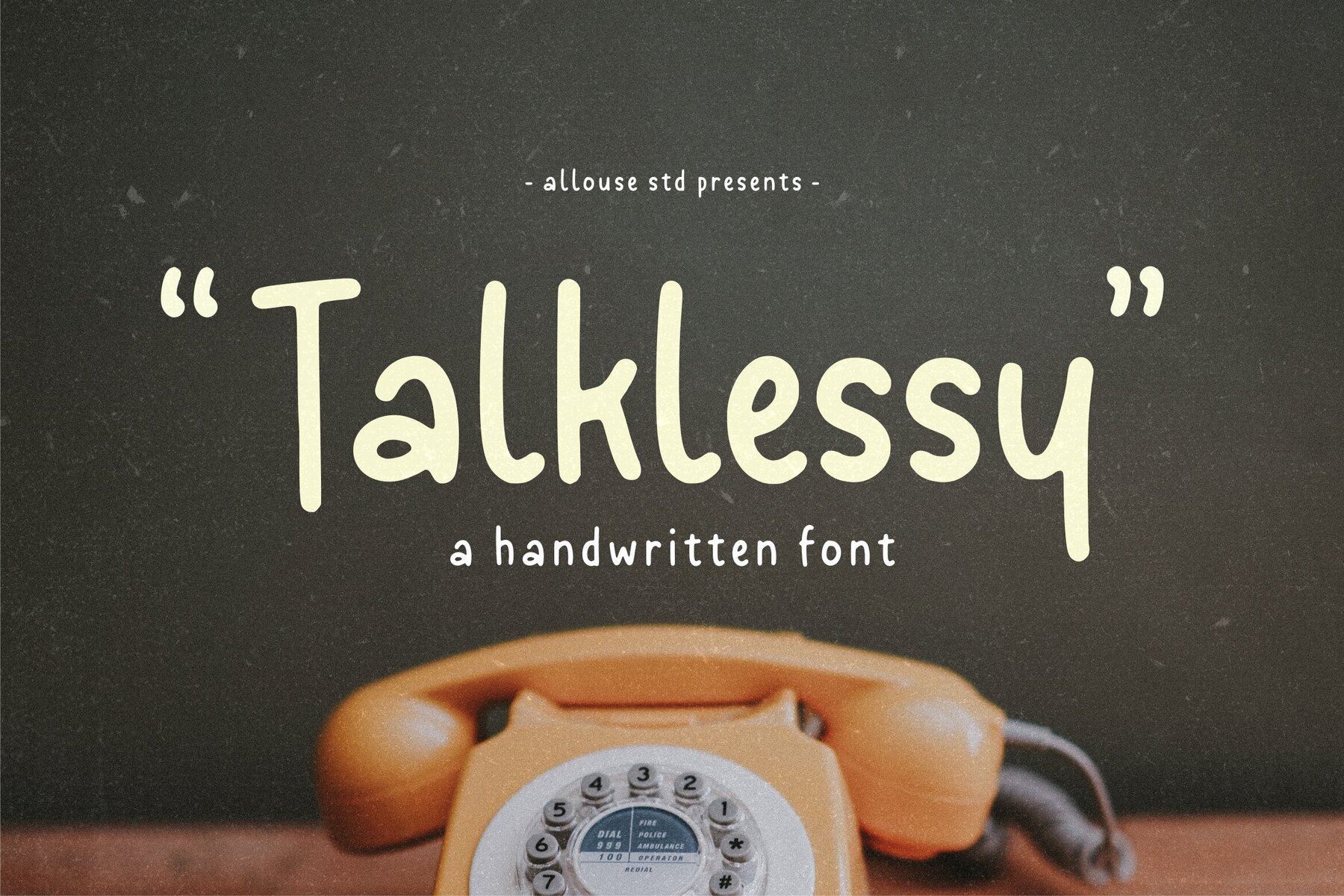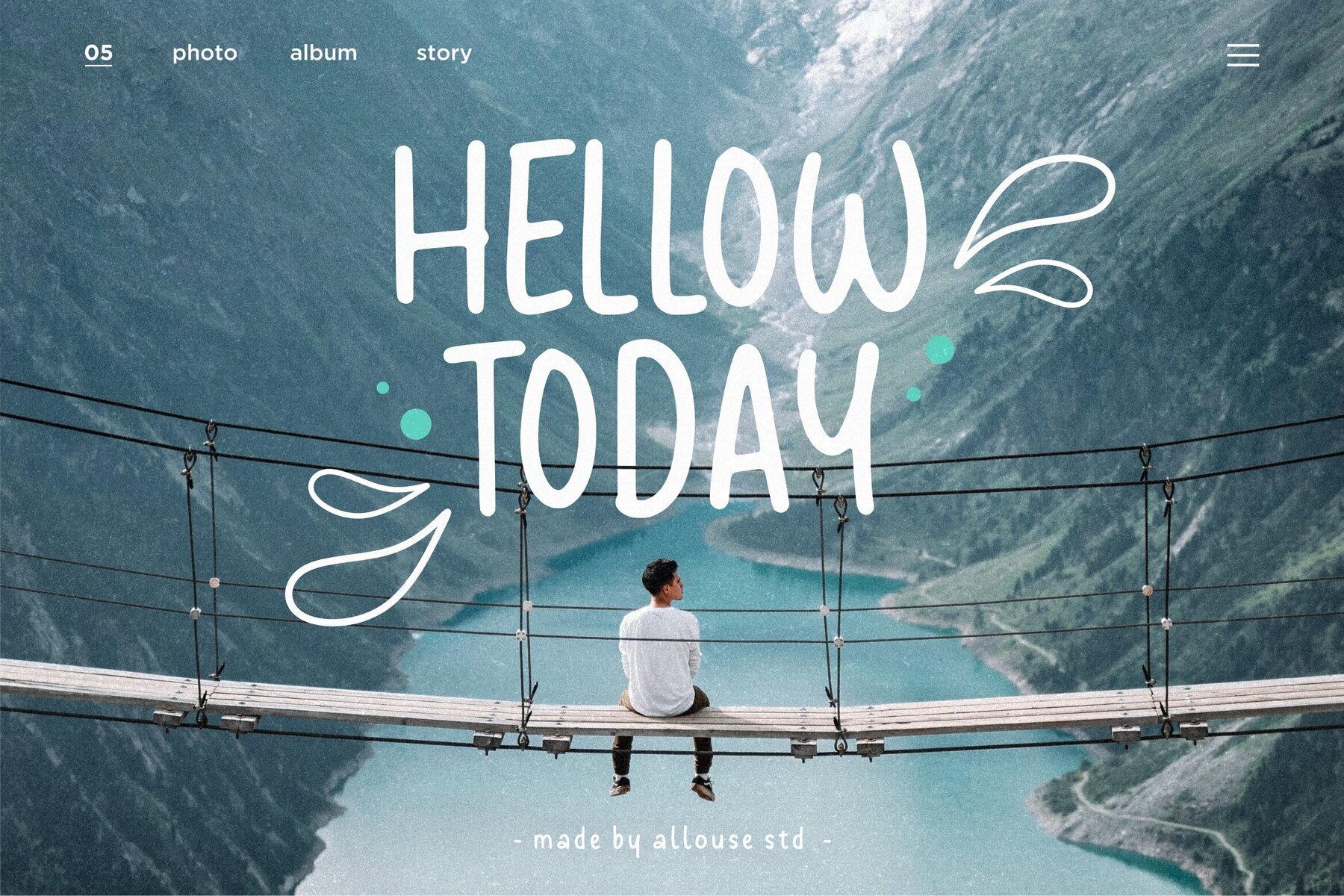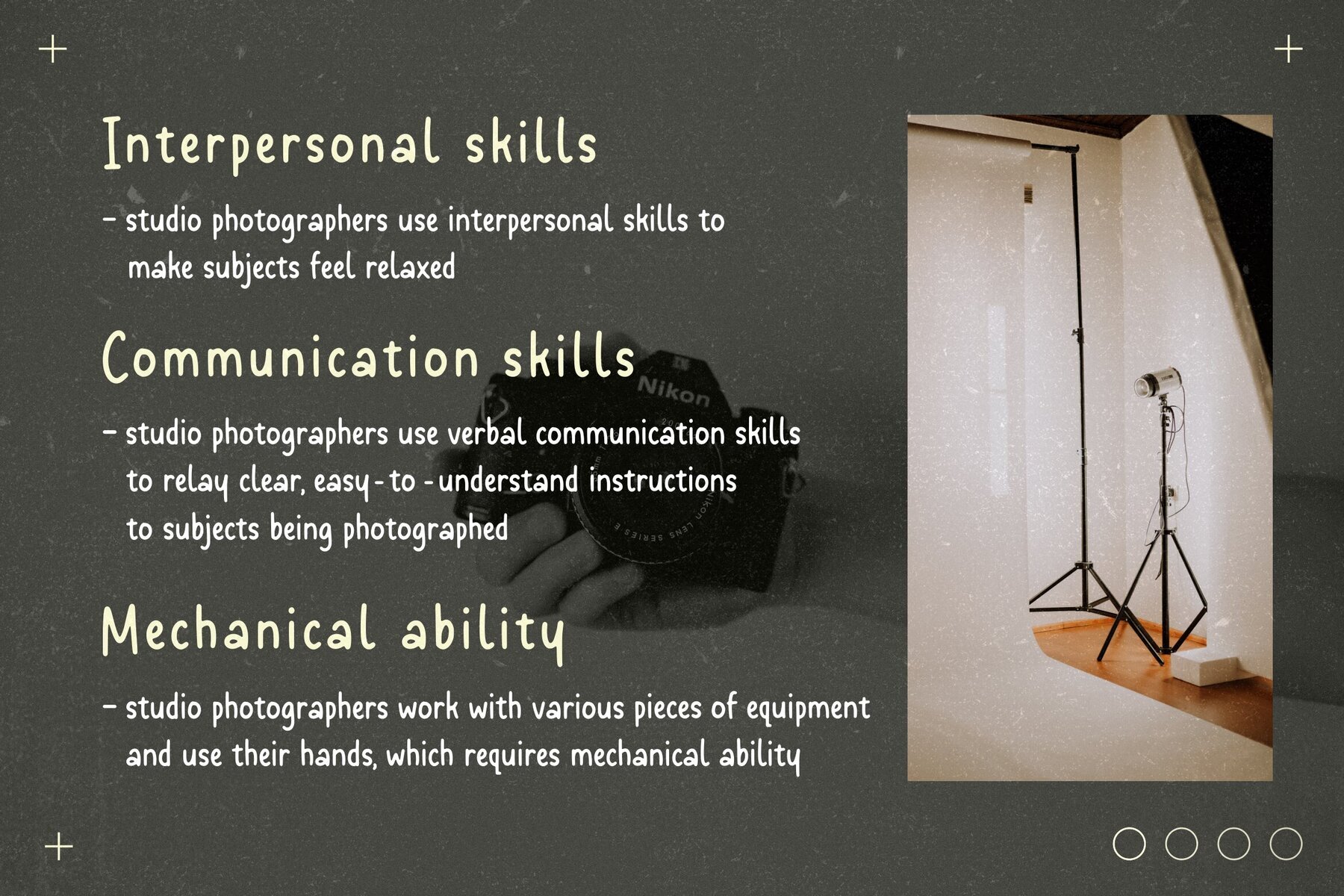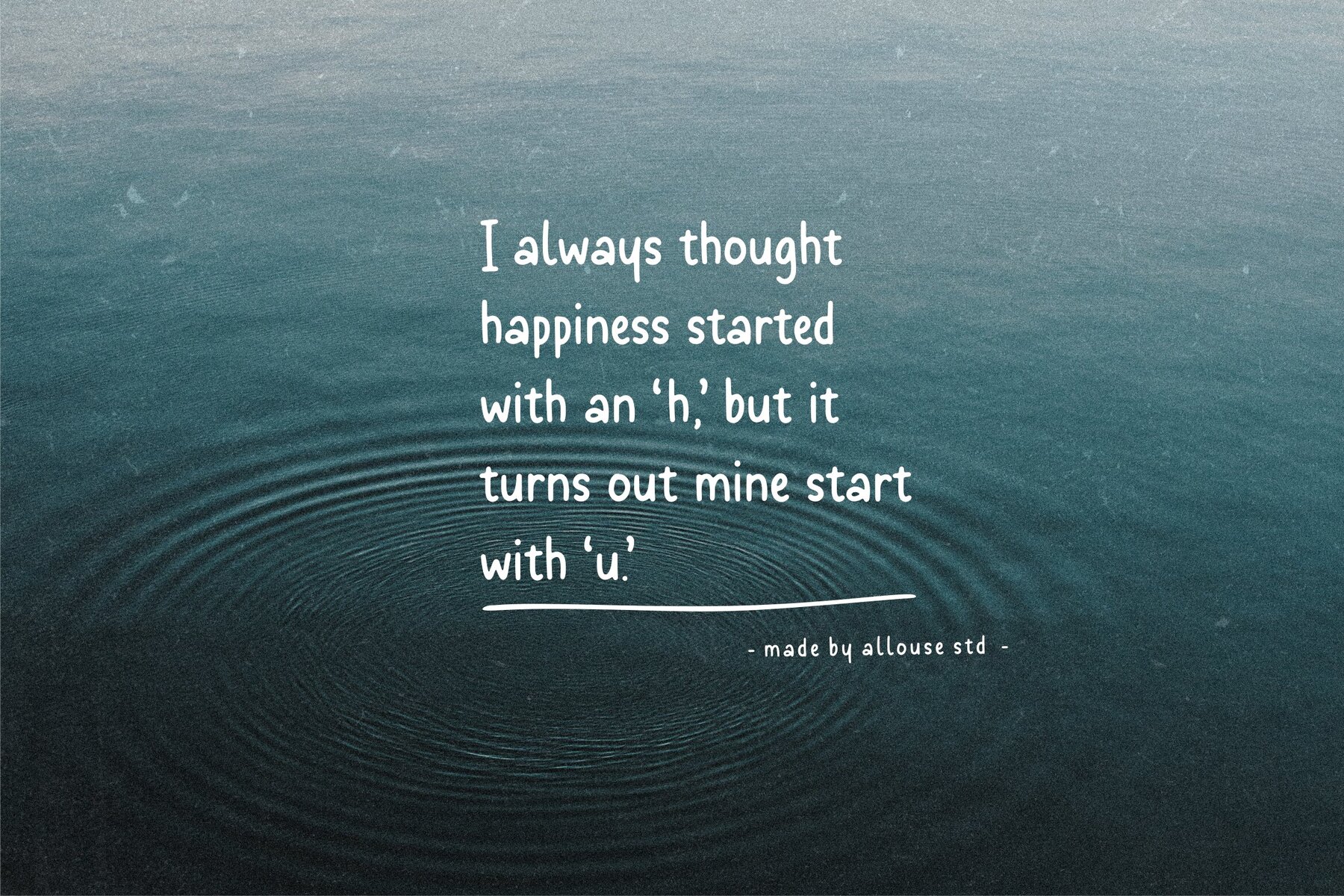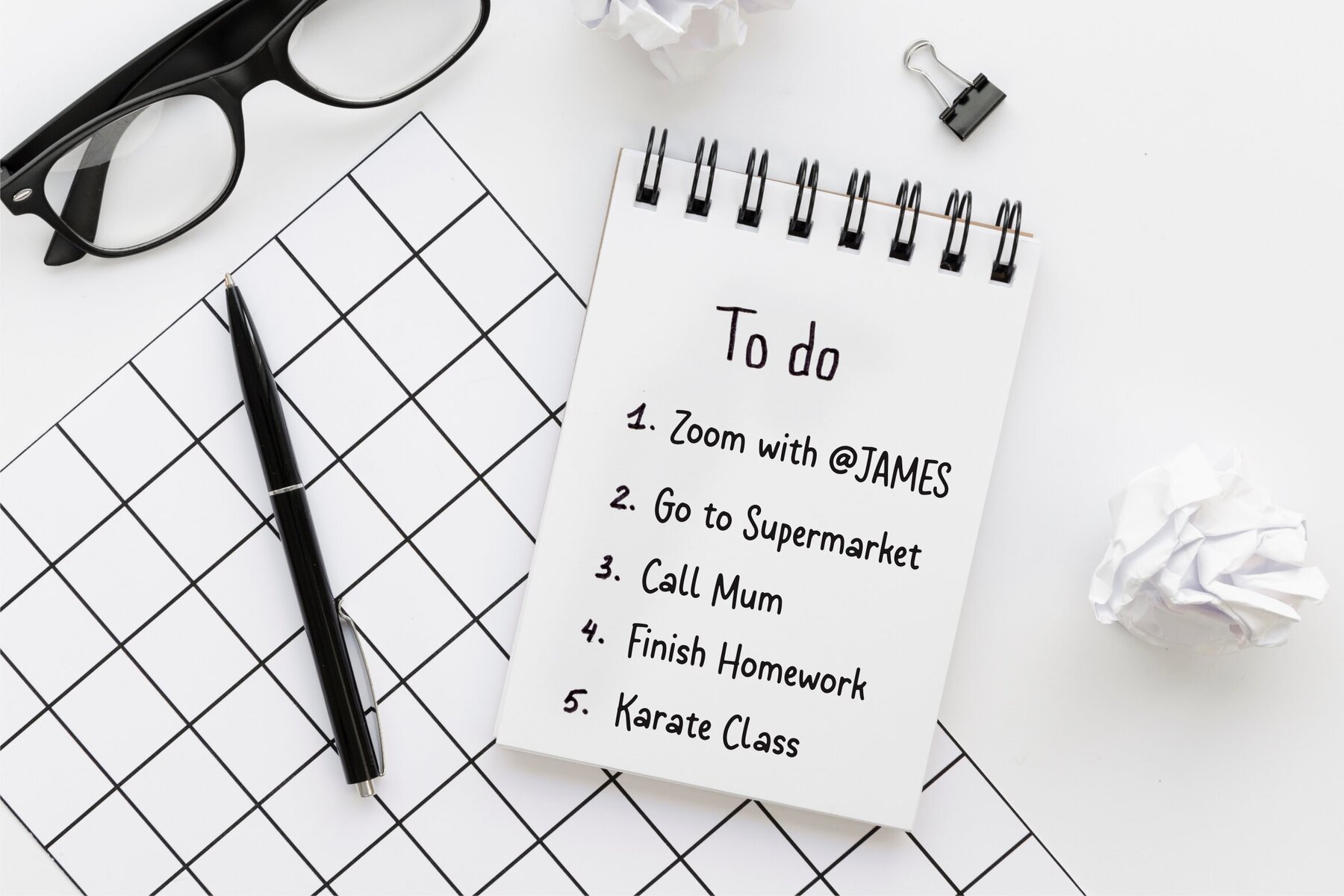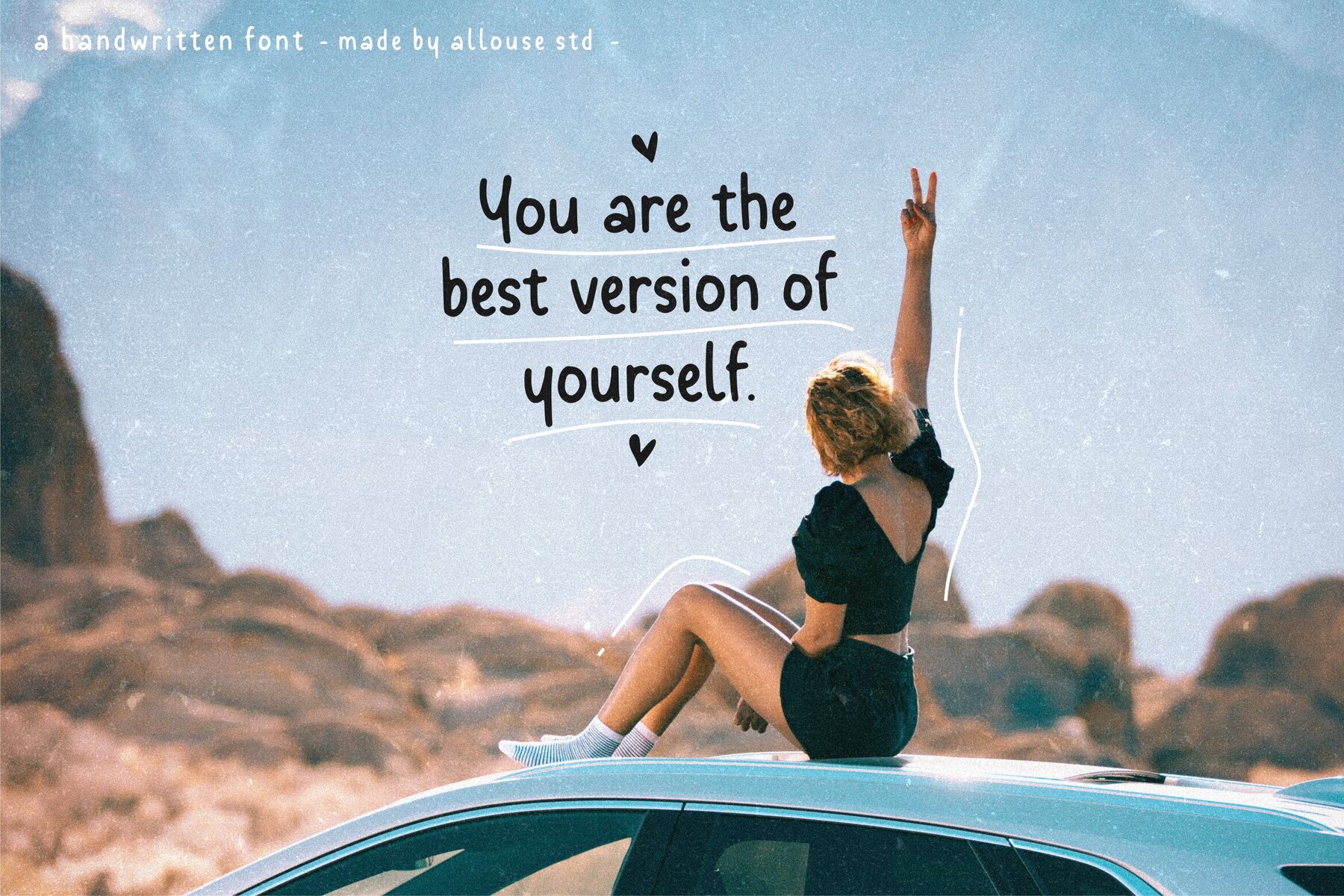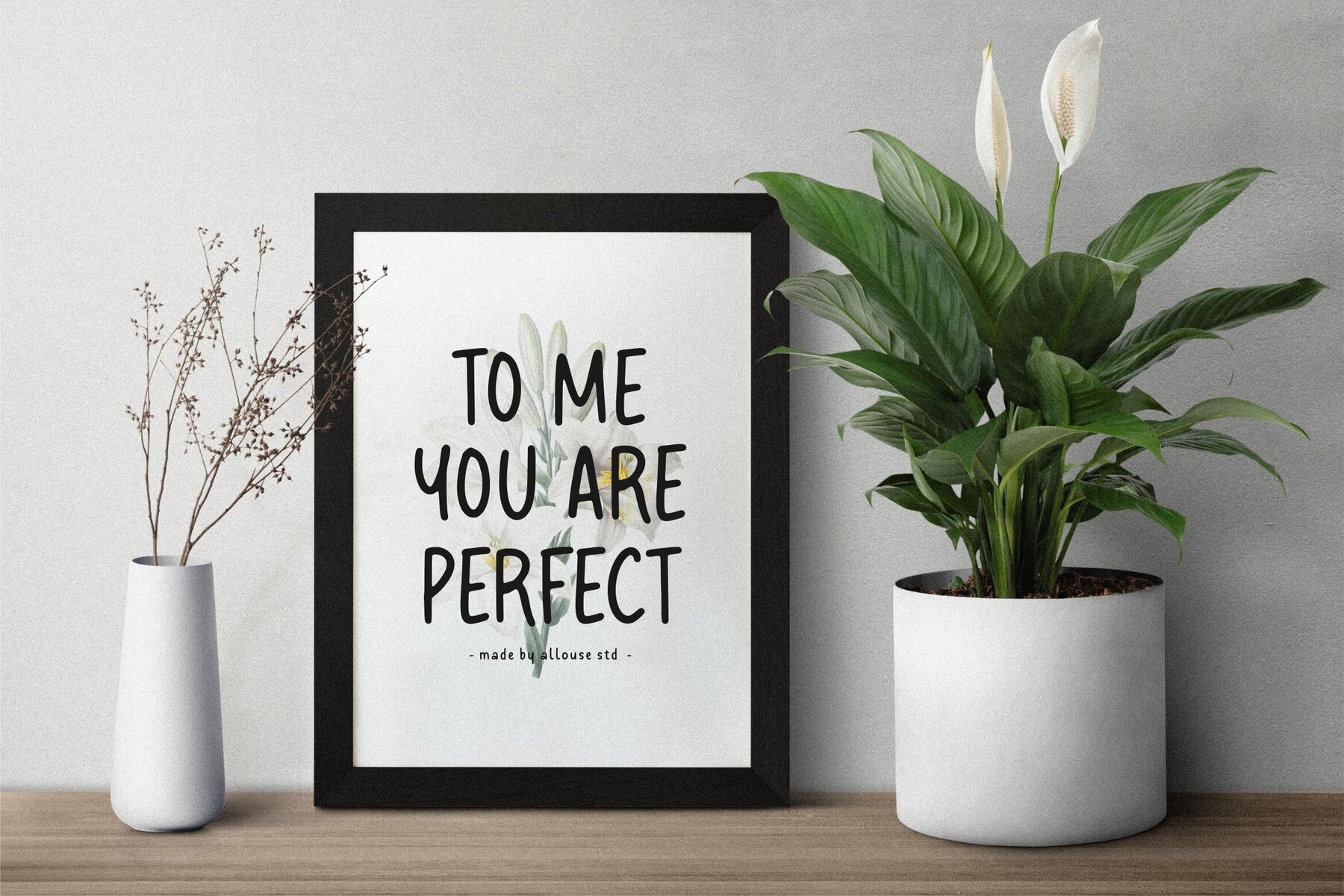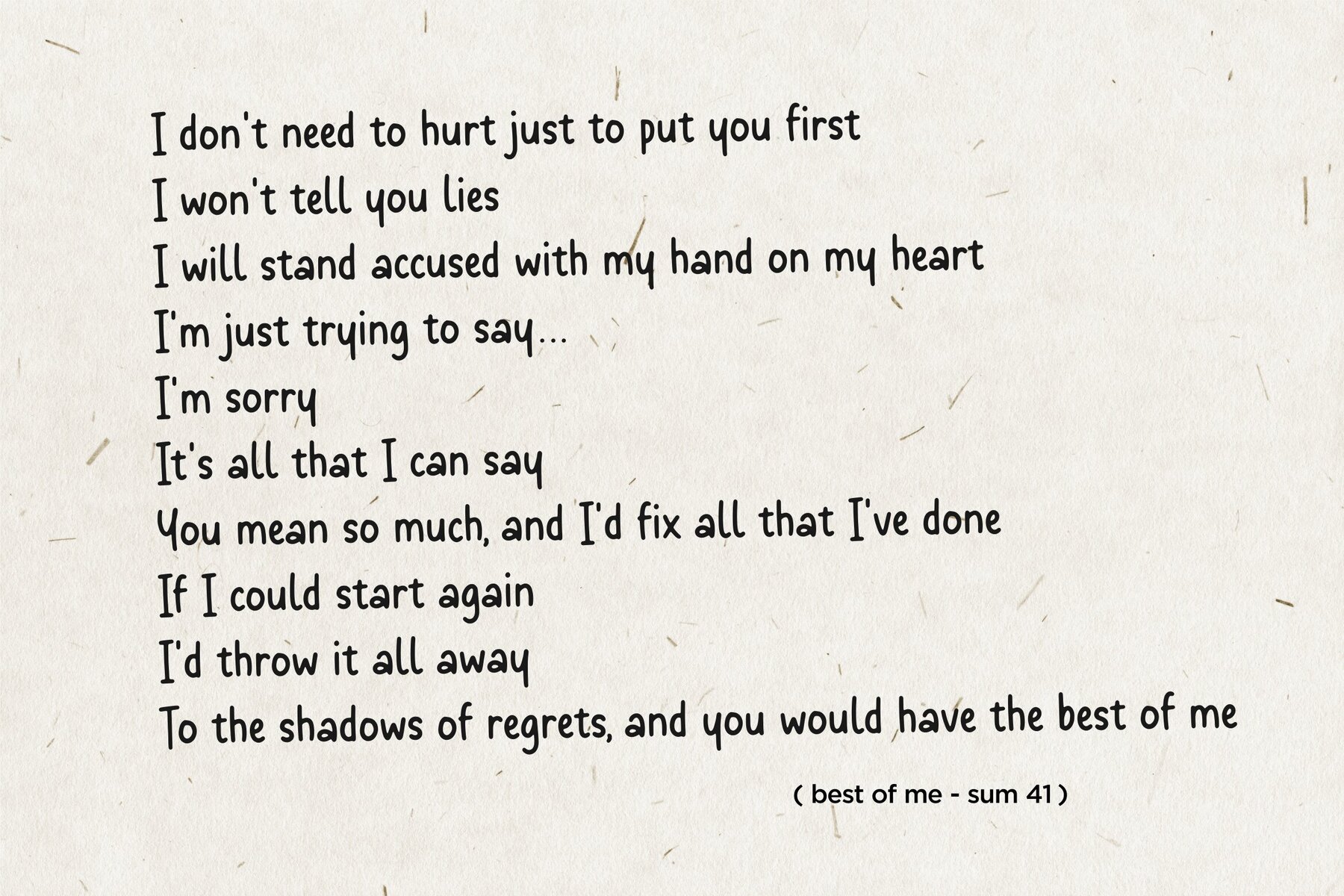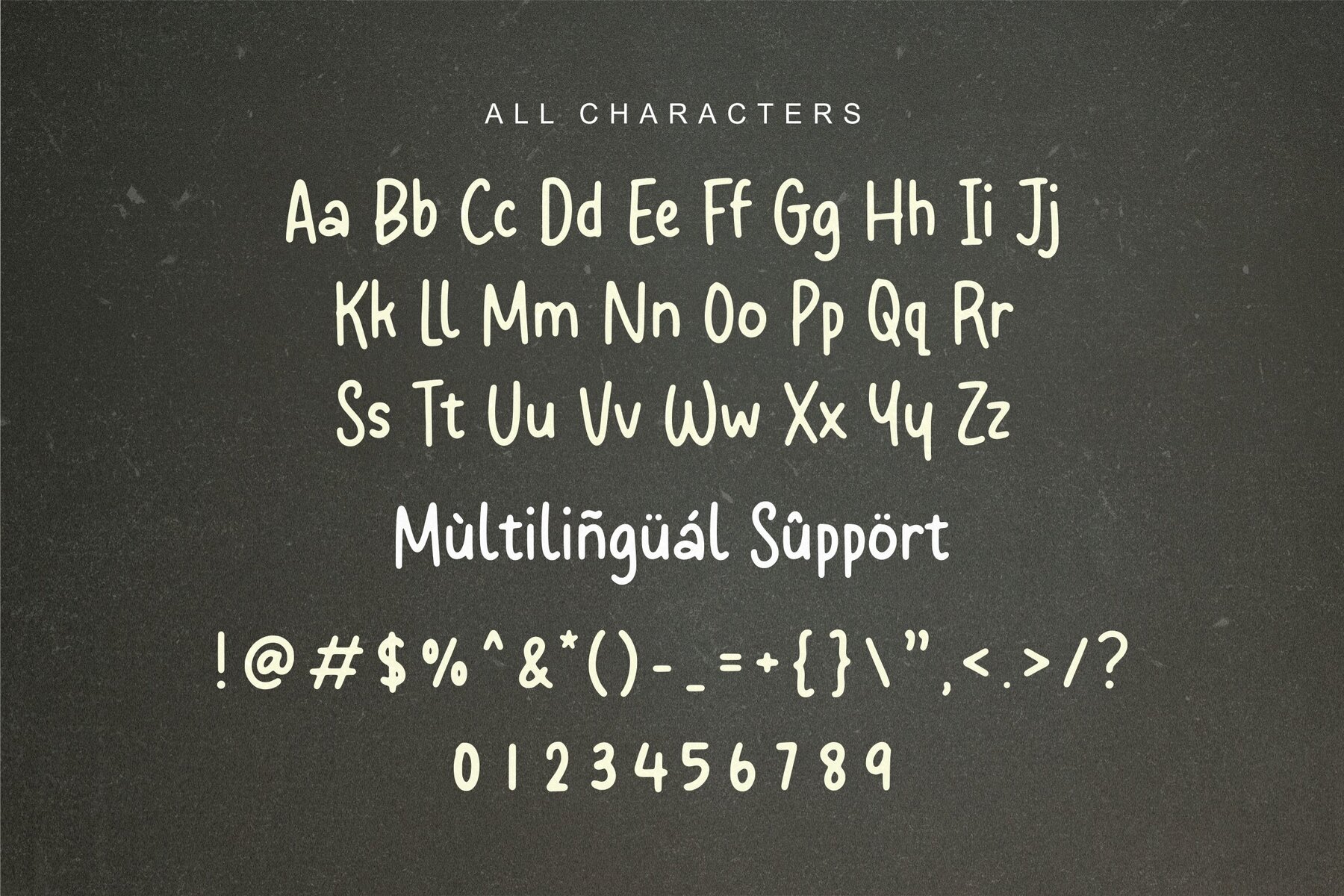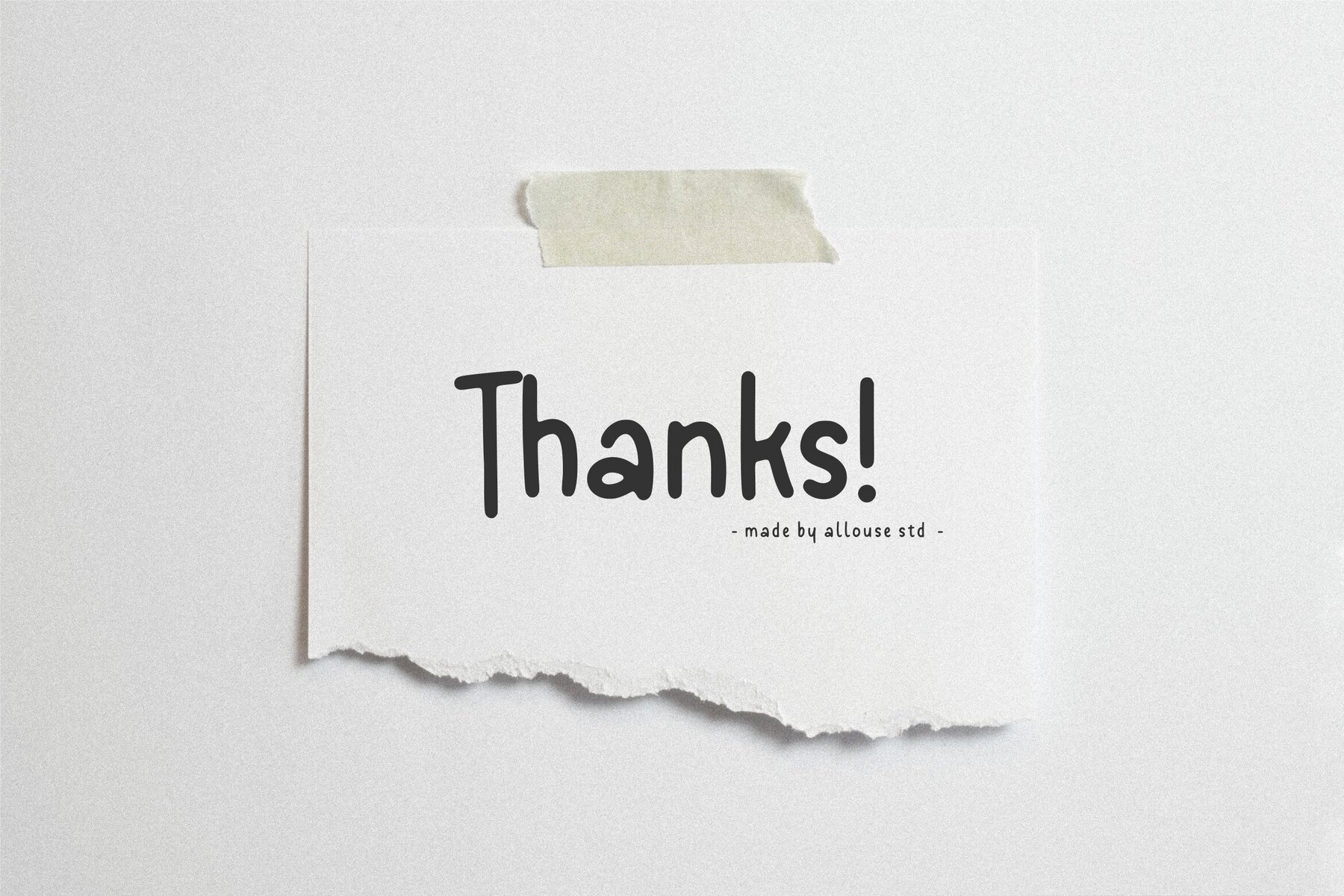
Talklessy Font
Talklessy Regular
Talklessy offers a refined and stylish touch to your design projects. Ideal for various applications, this font is perfect for enhancing product packaging, branding projects, magazines, social media posts, weddings, or simply for making statements against a backdrop.Talklessy: Elegant Font for Versatile Designs